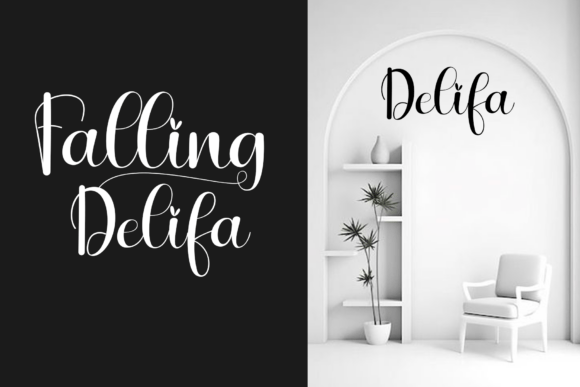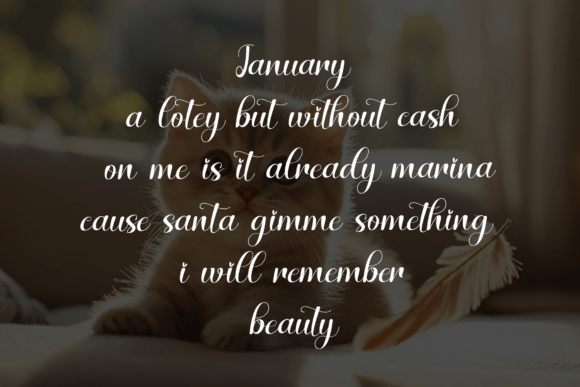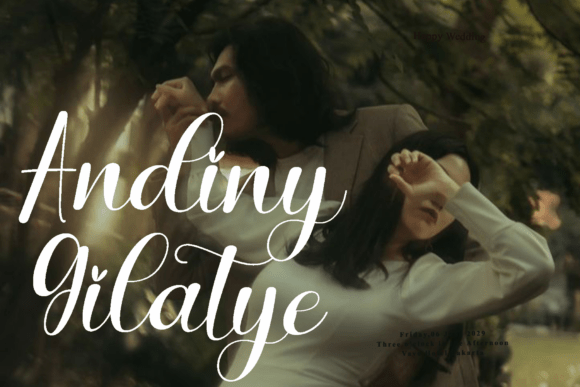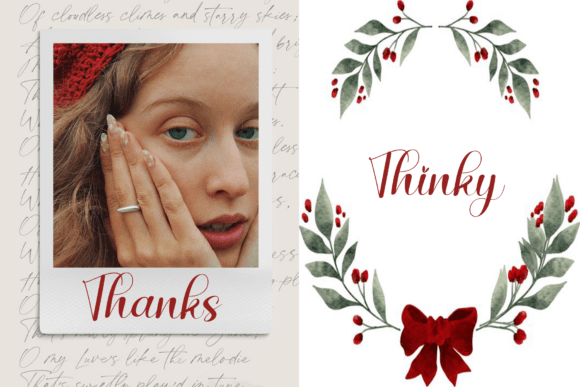
Discover the Charm of Feeling Font: Elevate Your Designs with a Timeless Handwritten Style
Are you on the hunt for a font that adds a personal touch to your designs? Look no further than Feeling Font, a lovely and timeless handwritten font that’s perfect for creating eye-catching logos, branding, and quotes. With its unique and beautiful touch, Feeling Font is sure to make your design come alive!
Handwritten fonts have a way of adding a touch of warmth and personality to any design. They evoke feelings of nostalgia and authenticity, making them perfect for designs that require a human touch. Feeling Font is no exception, with its elegant and flowing script that’s sure to capture the hearts of designers and crafters alike.
What Makes Feeling Font Special?
So, what sets Feeling Font apart from other fonts? For starters, every letter has a unique and beautiful touch that gives it a one-of-a-kind feel. The font is carefully crafted to ensure that each letter flows seamlessly into the next, creating a beautiful and cohesive look that’s perfect for designs that require a touch of elegance.
Whether you’re looking to create a stunning logo, a beautiful brand identity, or a heartfelt quote, Feeling Font is the perfect choice. Its versatility and charm make it suitable for a wide range of design projects, from wedding invitations and stationery to social media graphics and marketing materials.
Feeling Font is a dream come true for designers and crafters who want to add a personal touch to their work. With its easy-to-use and highly legible design, Feeling Font is perfect for creating beautiful and effective designs that capture the imagination of your audience.
Whether you’re a professional designer or a crafter who loves to create handmade goods, Feeling Font is a valuable addition to your design toolkit. Its timeless and elegant design ensures that your work will stand out from the crowd and leave a lasting impression on your audience.
Tips for Using Feeling Font
To get the most out of Feeling Font, here are a few tips to keep in mind:
- Use Feeling Font for headlines and titles to add a touch of elegance and sophistication to your design.
- Pair Feeling Font with a clean and simple font for body text to create a beautiful contrast.
- Don’t be afraid to get creative and add your own personal touch to your design.
Whether you’re looking to create a beautiful brand identity, a stunning logo, or a heartfelt quote, Feeling Font is the perfect choice. Its versatility, charm, and timeless design make it a valuable addition to any design toolkit.
So go ahead, get creative, and let Feeling Font help you bring your design vision to life!